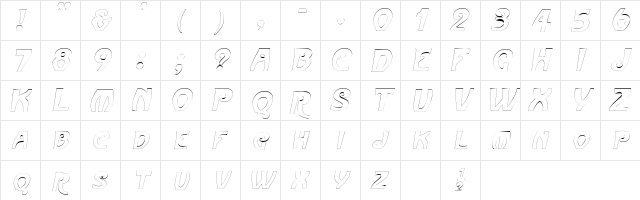
FrenchBeanOutline Oblique
Design Context for FrenchBeanOutline Typeface
FrenchBeanOutline is built around its visual character rather than neutral utility — its distinctive forms are designed to make an impression at display sizes. The slanted form adds forward momentum and visual energy.
Font Pairing: Pair with a clean neutral sans-serif for body copy to let FrenchBeanOutline's character lead without overwhelming the composition.
Pro Tip: Use FrenchBeanOutline exclusively at display sizes — it was designed to be seen, not read at length. Let a neutral companion handle body copy.